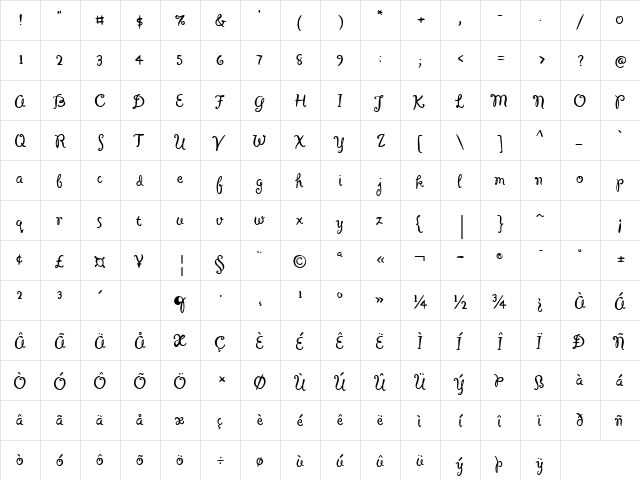
CafeMimiMVB Regular
Design Context for CafeMimiMVB Typeface
CafeMimiMVB takes a measured approach to typography — its balanced proportions and neutral character make it a reliable workhorse for both digital and print work.